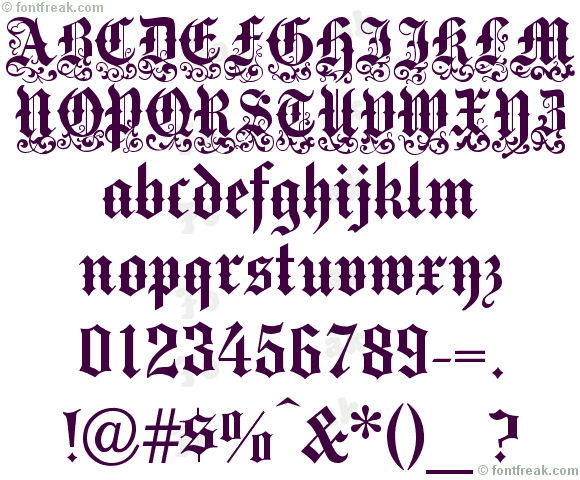
Medici Text
Medici Text, designed by Dieter Steffmann in 2002, is a captivating serif font that showcases a rich historical aesthetic. This font exhibits a unique blend of elegance and readability, making it a versatile choice for various design applications. The strokes are bold yet refined, with a moderate contrast that enhances legibility while maintaining a decorative flair. The overall spacing is well-balanced, allowing for comfortable reading whether in large or small sizes. Medici Text features intricate serifs and ornamental details that echo classic typographic traditions, lending a sense of sophistication to any project.
This font is ideal for a range of use cases, such as wedding invitations, where its ornate characteristics can add a touch of romance and formality. It also works wonderfully for movie posters, particularly in genres that aim to evoke a vintage or dramatic feel. Additionally, restaurant menus can benefit from the refined appearance of Medici Text, enhancing the dining experience and making the menu items stand out. Graphic designers will find this font a valuable addition to their toolkit, as it can elevate branding projects and promotional materials, creating a lasting impression on clients and audiences alike.